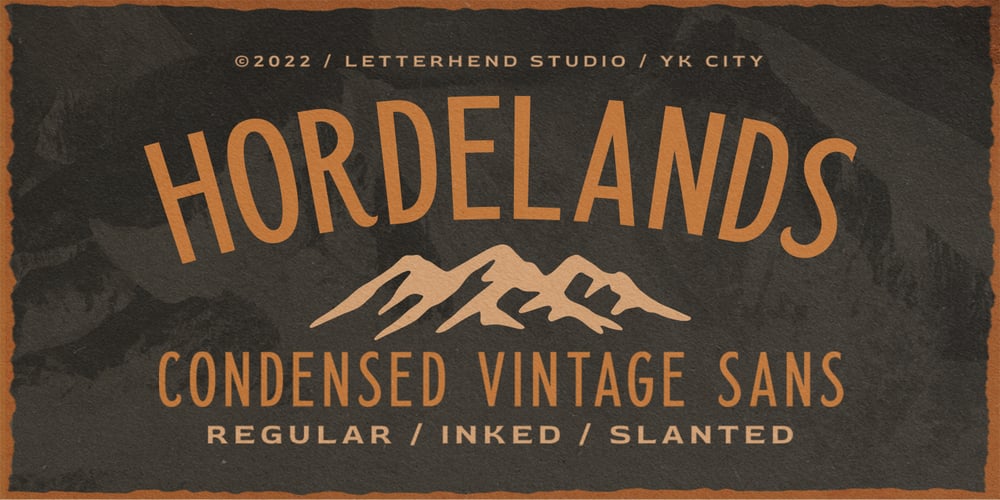
Hordelands Font Family was designed by Hendry Juanda and published by Letterhend. Hordelands contains 4 styles and family package options. Hordeland is a display condensed typeface with a touch of vintage look and feel. This type of font perfectly made to be applied especially in logo, headline, signage and the other various formal forms such as invitations, labels, logos, magazines, books, greeting / wedding cards, packaging, fashion, make up, stationery, novels, labels or any type of advertising purpose.Features : uppercase & lowercase numbers and punctuation multilingual alternates / swashes and ligatures PUA encoded We highly recommend using a program that supports OpenType features and Glyphs panels like many of Adobe apps and Corel Draw, so you can see and access all Glyph variations.